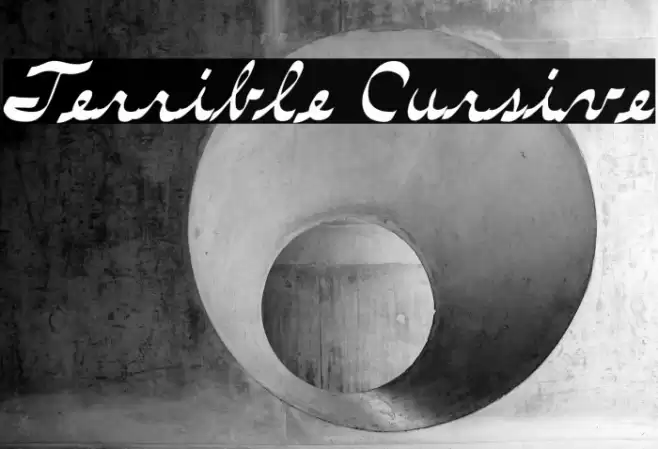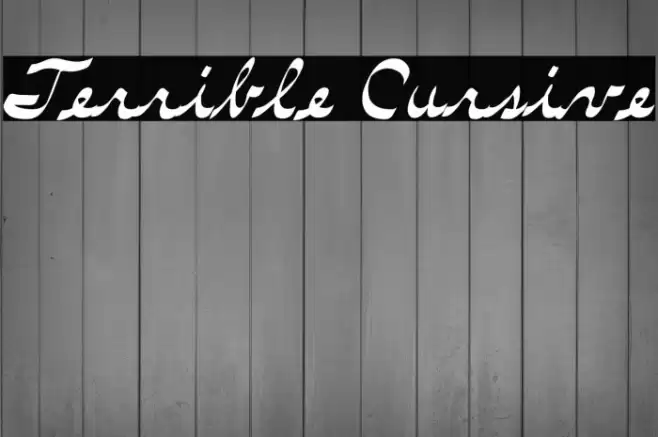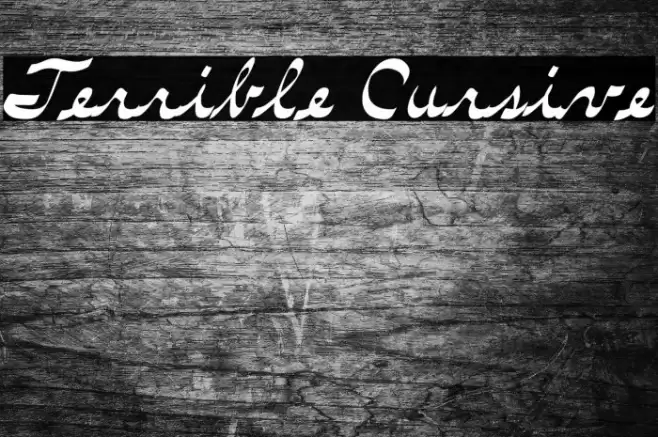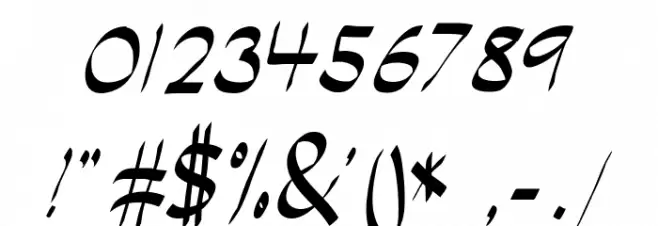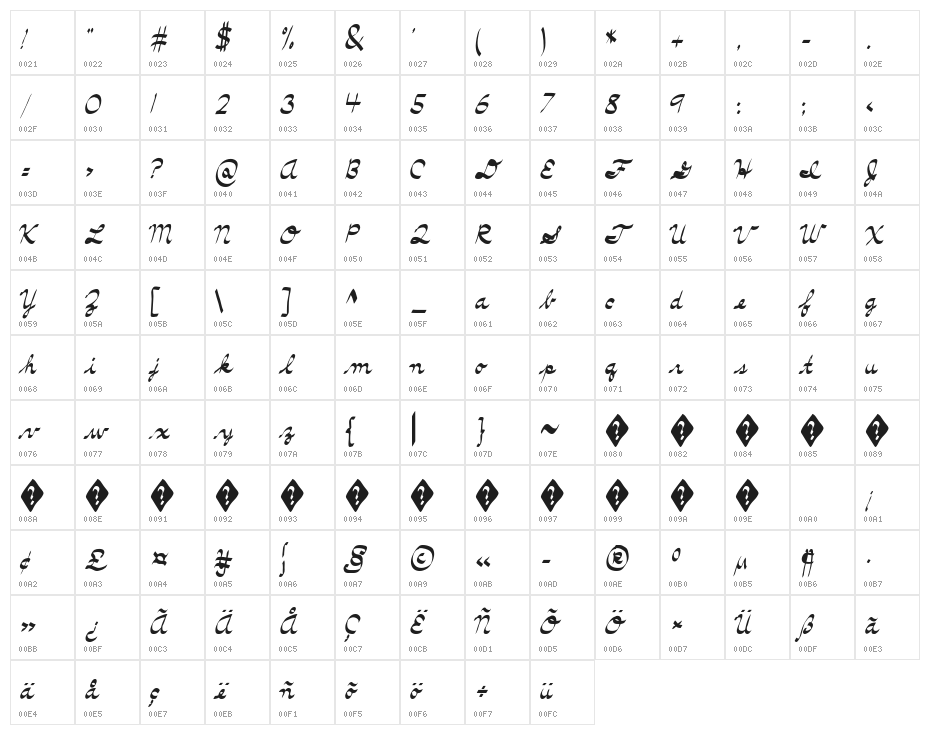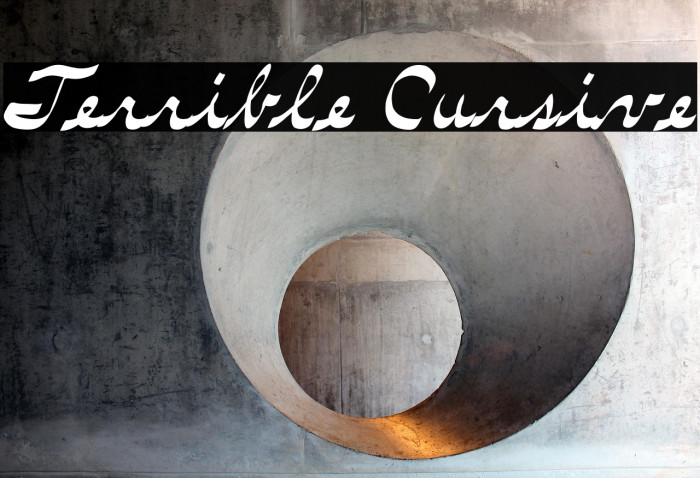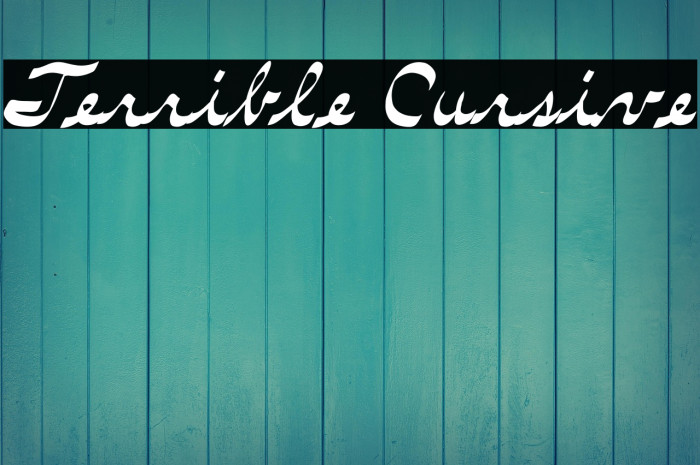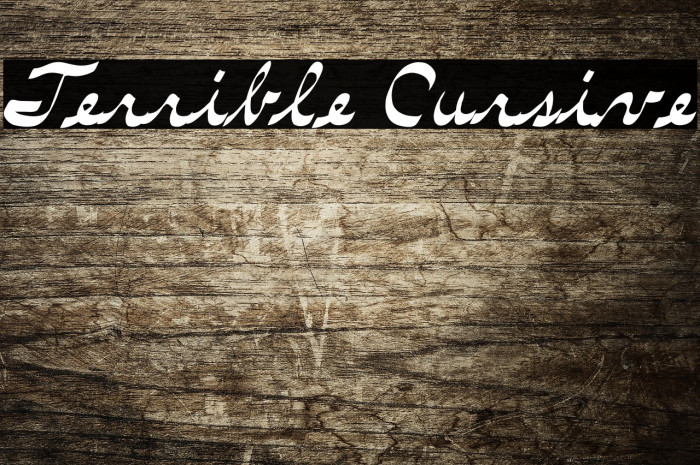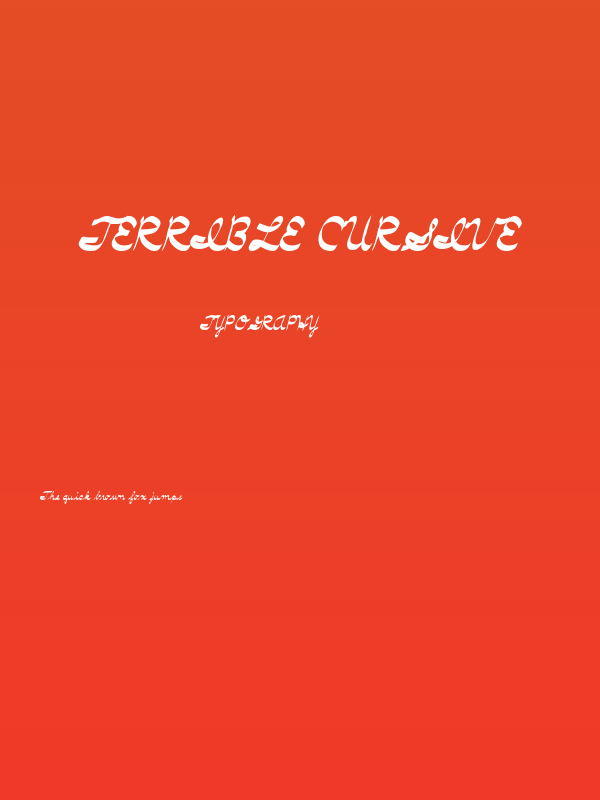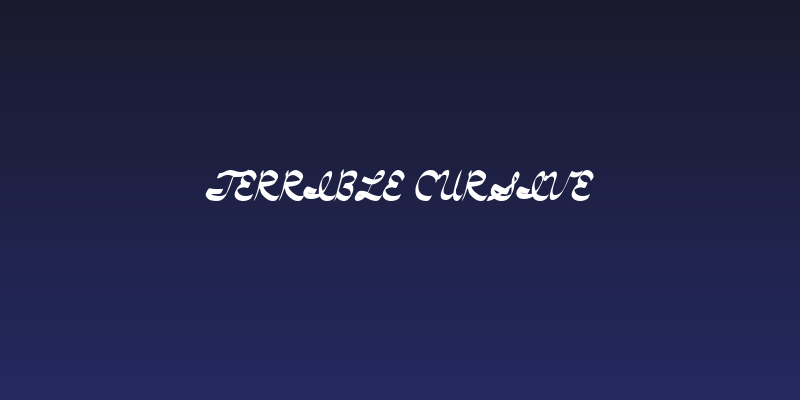
Terrible Cursive Font
Terrible Cursive Description
This font features a dynamic and flowing cursive style that mimics the fluidity of handwritten script. The letters are interconnected, creating a seamless and elegant appearance. The strokes are bold and expressive, with varying thickness that adds a sense of movement and energy. The uppercase letters maintain a consistent height, while the lowercase letters exhibit a playful bounce, enhancing the font's lively character. The numerals and special characters are designed to complement the overall style, maintaining the same cursive flow. This font is ideal for projects that require a personal touch or a sense of sophistication.
A bold and expressive cursive font with interconnected letters and dynamic strokes from Uncategorized fonts.
- Character Spacing: Tight